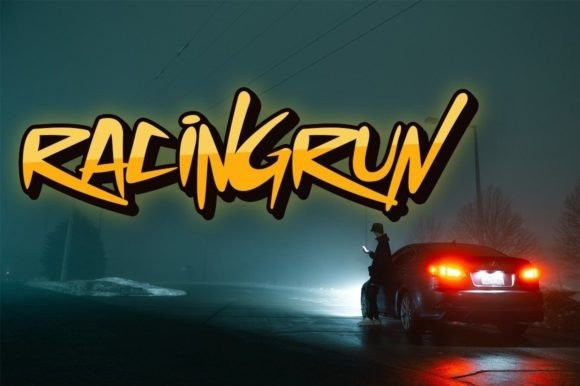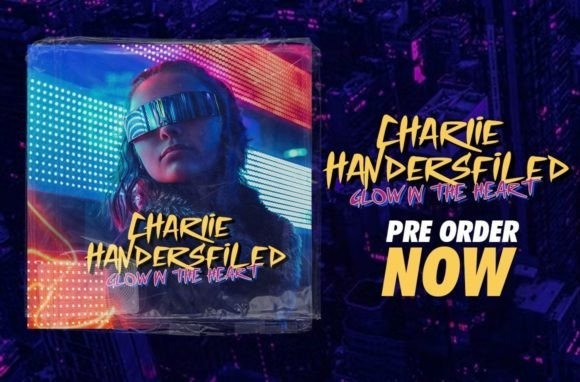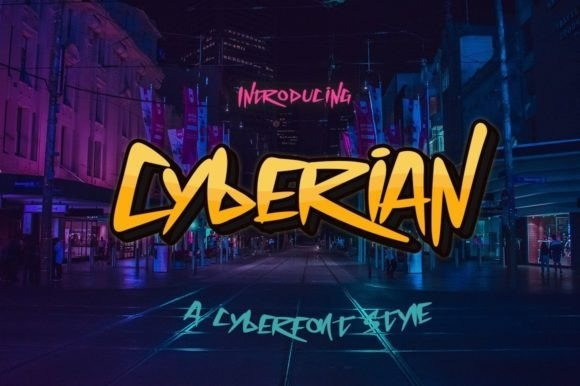
Cyberian Display Font
Cyberian Font a wild, bold, fast, rebellious, futuristic font to elevate your design 100 years in no time. Perfect fit for e-sports logos, apps, UI, UX, game design, digital music branding, posters, live streaming design, any time you need it. touch the future,